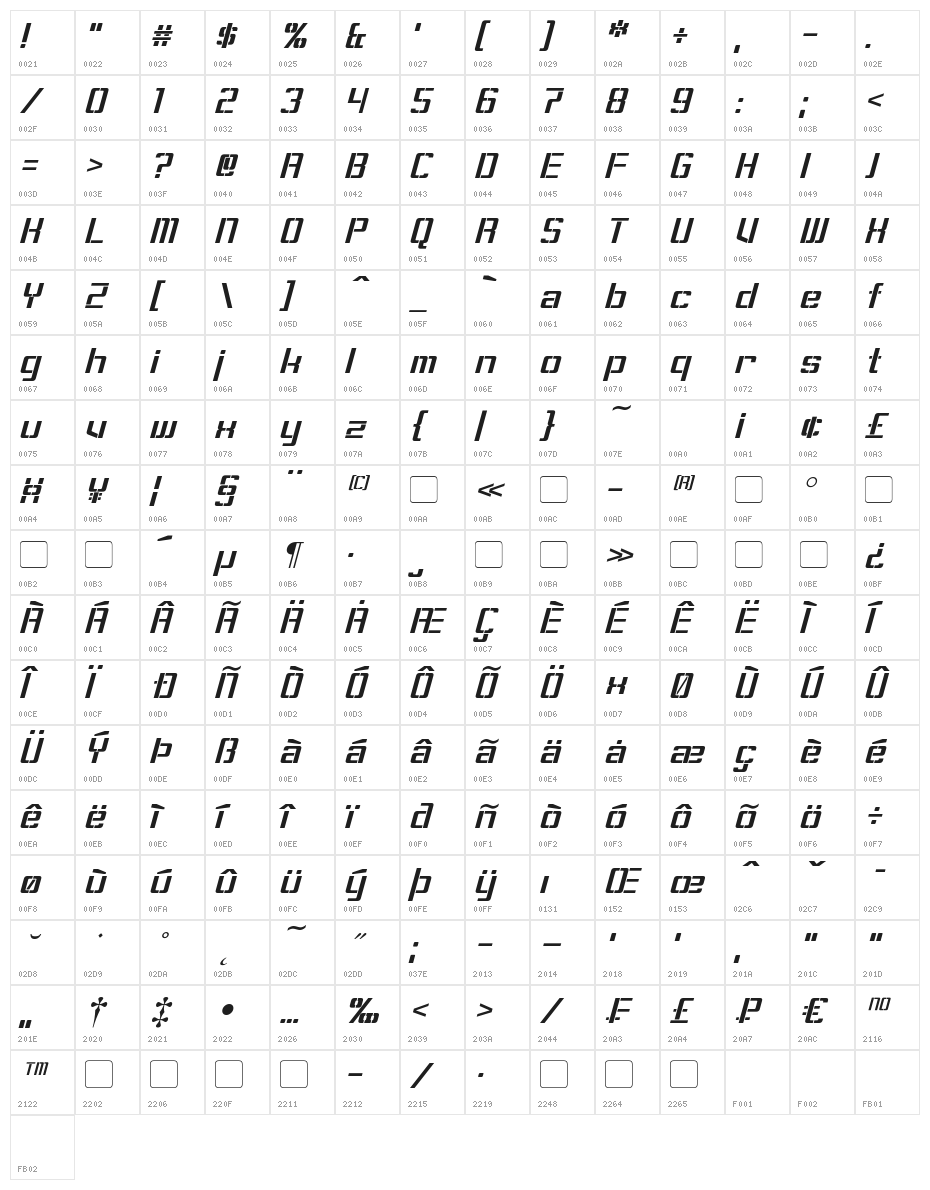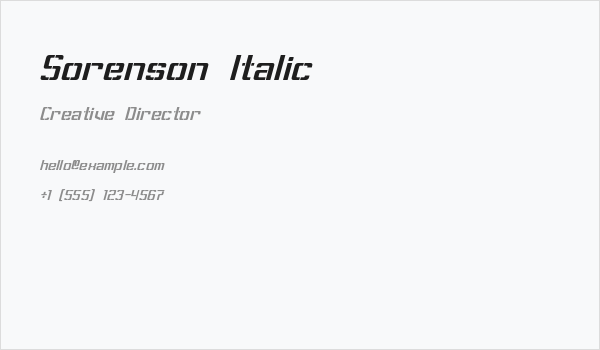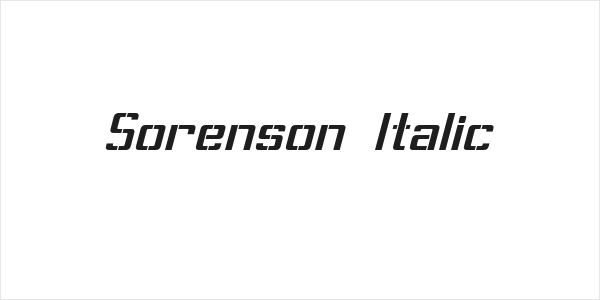
Sorenson Italic Font
Sorenson Italic Description
This font features a modern, italicized style with a distinct slant, giving it a dynamic and forward-moving appearance. The characters are bold and angular, with a consistent stroke width that maintains readability while adding a touch of sophistication. The uppercase and lowercase letters are well-proportioned, and the numerals are clear and easy to distinguish. Special characters are included, maintaining the same stylistic elements, making this font versatile for various design needs.
| Proposed Projects | Ideal for branding, advertising, and editorial design where a modern and dynamic look is desired. |